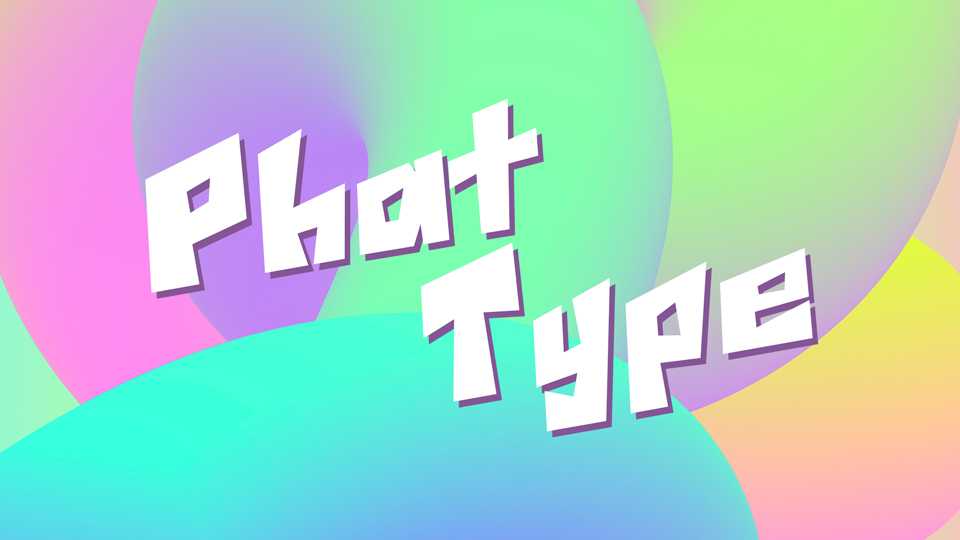
Download Phat type font, a blocky display typeface designed for the sake of game development. The intention was to get something chunky and angular going.